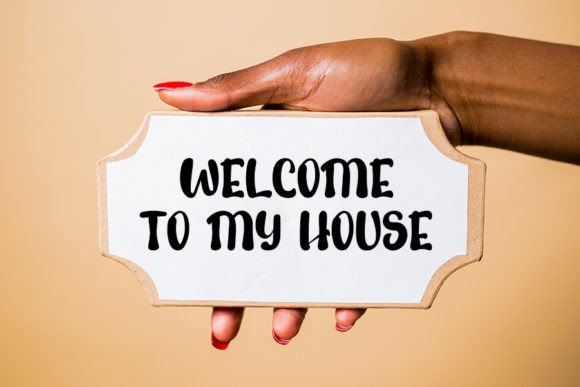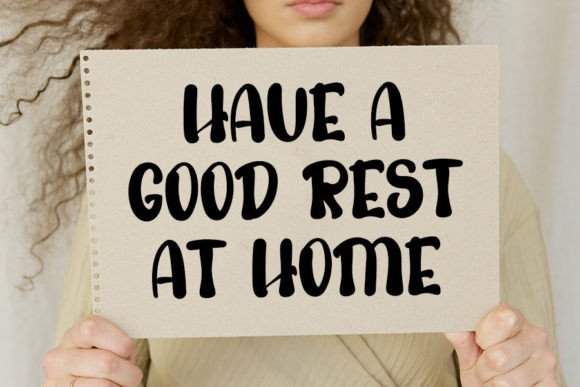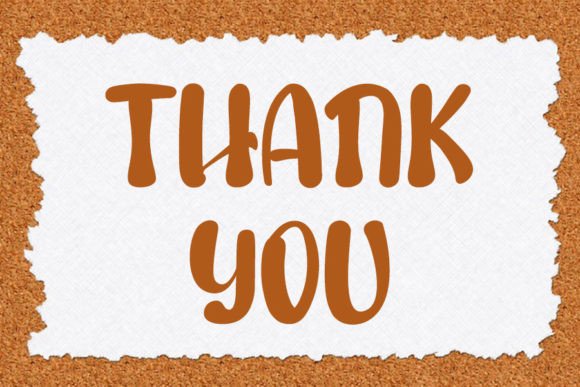
Introduction to House Key Font
As a designer, you’ve probably found yourself staring at a blank canvas, trying to bring a creative project to life. The perfect font can make all the difference, elevating your design from ordinary to extraordinary. And that’s exactly what the House Key Font does – it adds a touch of elegance and sophistication to any project.
With its high-quality, handwritten style, the House Key Font is a game-changer for designers. Its timeless classic calligraphy design is not only visually stunning but also versatile, making it perfect for a wide range of creative projects. Whether you’re working on a logo, a brochure, or a social media graphic, this font is sure to impress.
Key Features of House Key Font
- High-quality design resource with a unique, modern aesthetic, ideal for creative projects and designs.
- Resolution: High-resolution design, perfect for printing and digital applications.
- Size: Scalable design, available in various sizes to suit different design needs.
- Unique characteristics: Distinctive typography and design elements, making it a standout choice for creative projects.
Honest Review: House Key Font
I recently stumbled upon the House Key Font and was excited to give it a try for my current creative project. As a designer, I’m always on the lookout for high-quality design resources that can elevate my work and save me time. The House Key Font did not disappoint!
- What works well: ✨ The House Key Font comes with a transparent background, making it easy to customize and fit seamlessly into my design. The font is also surprisingly versatile, working well for both digital and print projects.
However, I did encounter a few limitations with the House Key Font. ⚠️ The font selection is relatively limited, with only a handful of styles to choose from. Additionally, some of the characters may not display correctly in certain fonts or environments.
Overall, I’m impressed with the House Key Font and would definitely recommend it as a design resource for anyone working on a creative project. While it may not be the most comprehensive font collection, its high-quality design and transparent background make it a valuable addition to any designer’s toolkit.
House Key Font: A Comprehensive Guide
The House Key Font is a high-quality design resource available for free download. It’s perfect for any creative project that requires a unique and eye-catching font.
Tips for Getting the Most Out of House Key Font
Experiment with different font sizes and colors to achieve the desired effect. You can also pair the font with other design elements to create a unique look.
The House Key Font is perfect for a variety of projects, including social media graphics, presentations, and marketing materials. Its unique design and high quality make it a valuable design resource.
Compared to House Key Font, Open Sans is more versatile and can be used in a wide range of font sizes without losing readability. It’s also more suitable for body text and is available in multiple weights.